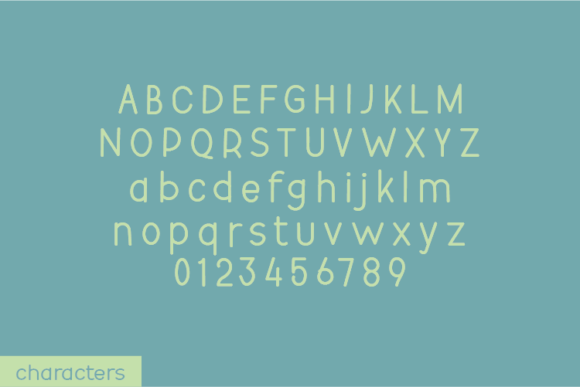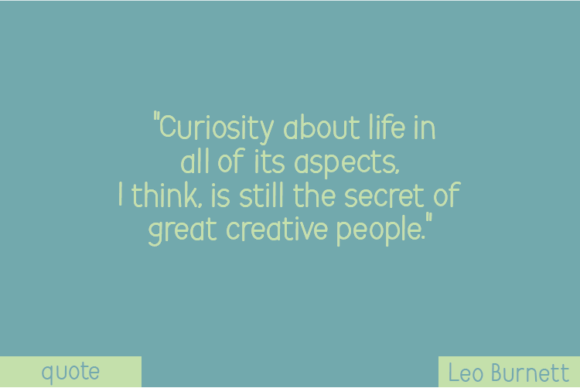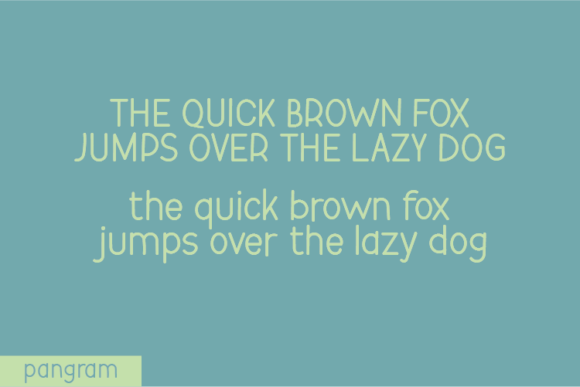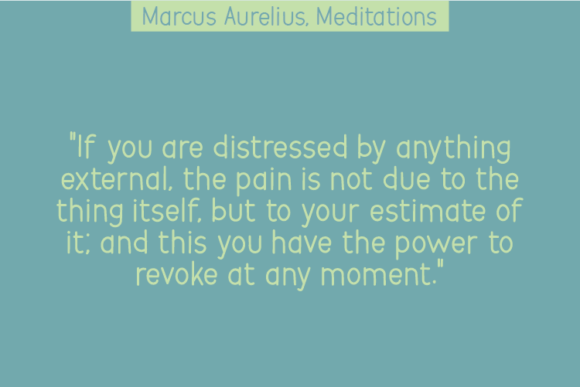
About Nuanced Font
Nuanced Font Download brings you a natural handwritten typeface with a distinctive touch. Each character is crafted without altering a single node, which gives the font its authentic, raw flow. This design decision makes Nuanced stand out, providing a look that feels handcrafted and original. Its organic movement and stylish irregularities make it perfect for a wide range of creative uses.
Natural Flow and Versatility
The unique construction of Nuanced makes it versatile and expressive. Its strokes deliver a sense of individuality that enhances every design. This handwritten font adapts beautifully to different contexts, whether casual or professional. You can use it for:
Inspiring quotes and creative notes
T-shirt designs and casual apparel
Greeting cards, journals, and stationery
Branding, product labels, and packaging
Social media graphics and blog headers
Perfect for Designers and Creatives
Nuanced strikes a balance between authenticity and usability. It has enough uniqueness to catch attention while remaining clean and legible. Pair it with sans-serif fonts for contrast or use it alone to create strong typographic statements. From branding to DIY projects, its charm fits seamlessly.
If you want a handwritten typeface that reflects natural artistry while staying practical, Nuanced Font Download is the right choice. Its handcrafted style ensures your work looks personal and engaging, whether in print or digital design.